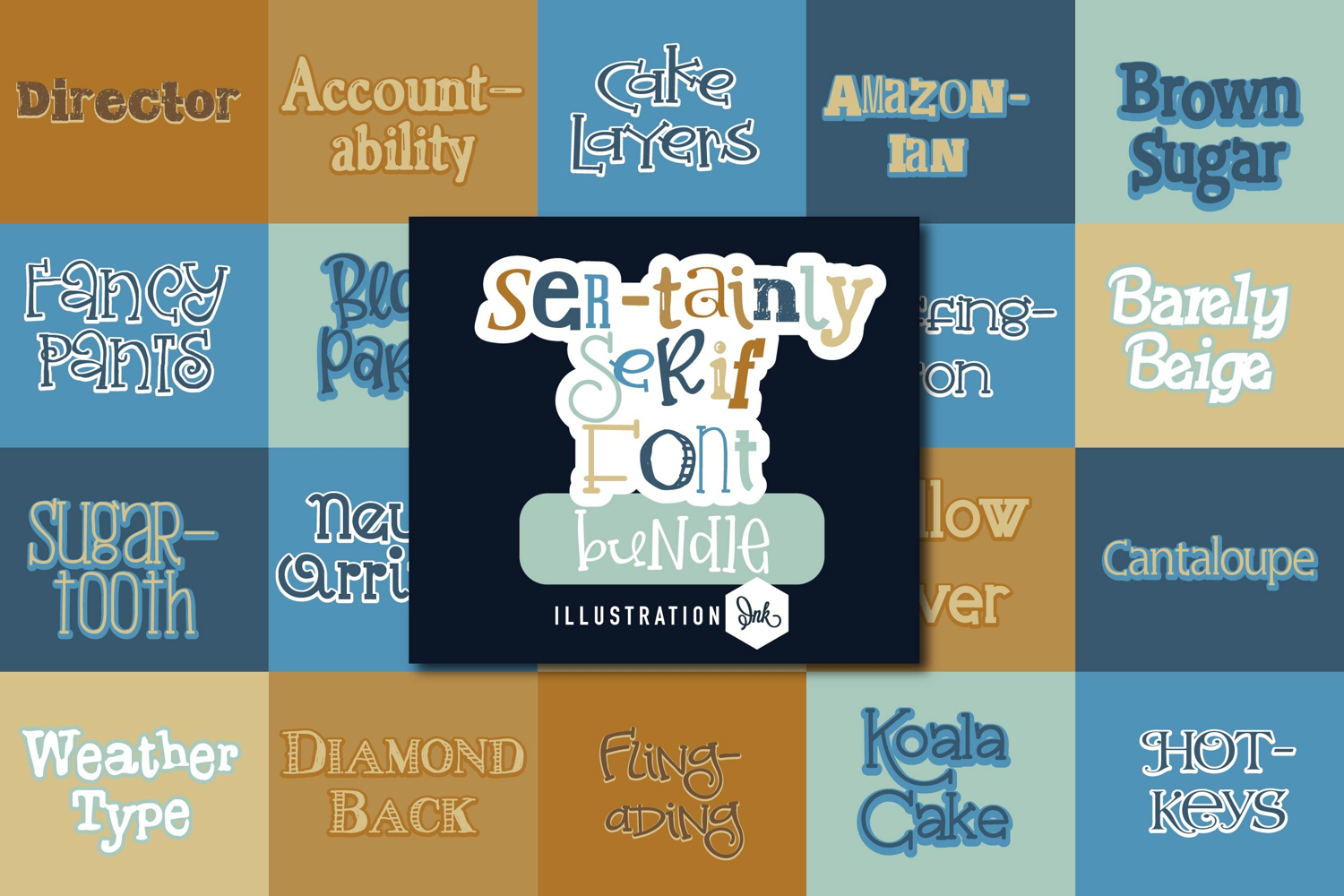
Ser-tainly Serif Font Bundle
This hand-crafted font bundle contains 20 font families of hand-crafted serif fonts, with over 120 variations! Zip file contains both the .otf and .ttf fonts!
• The letters are not perfectly uniform in size or shape.
• There may be slight variations in the spacing between letters and words.
• The font may have a "wiggly" or "squiggly" appearance.
• The font may be difficult to read at small sizes.